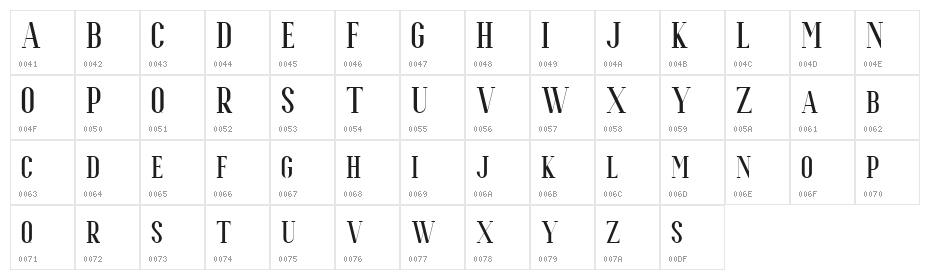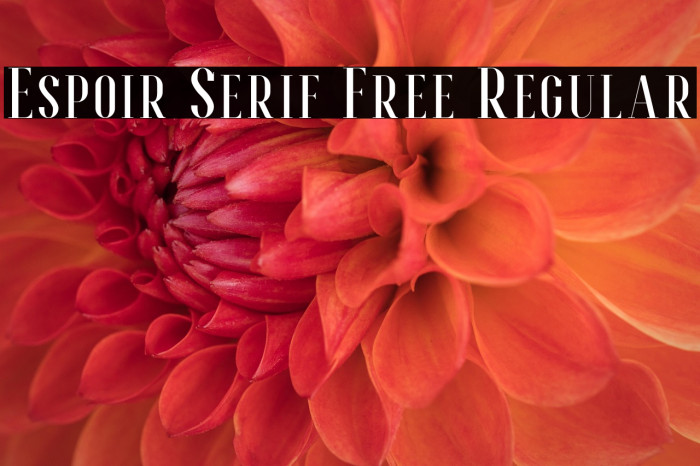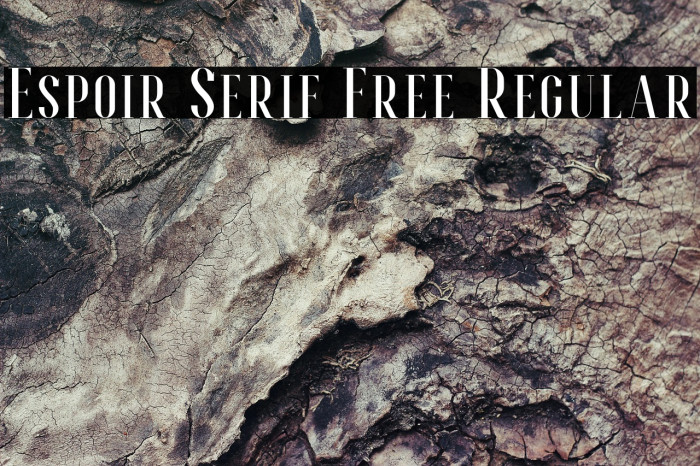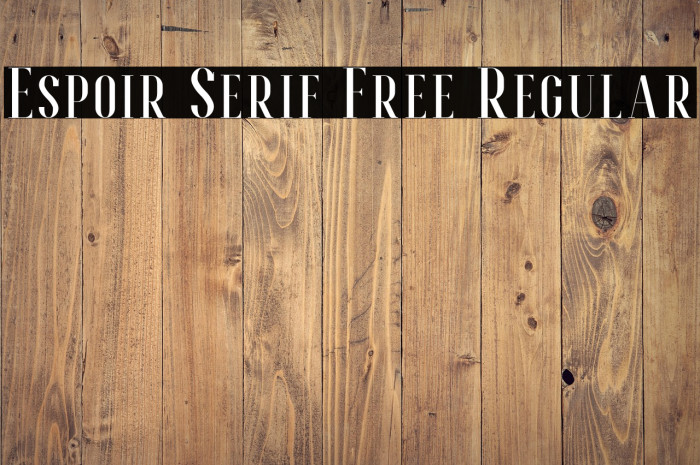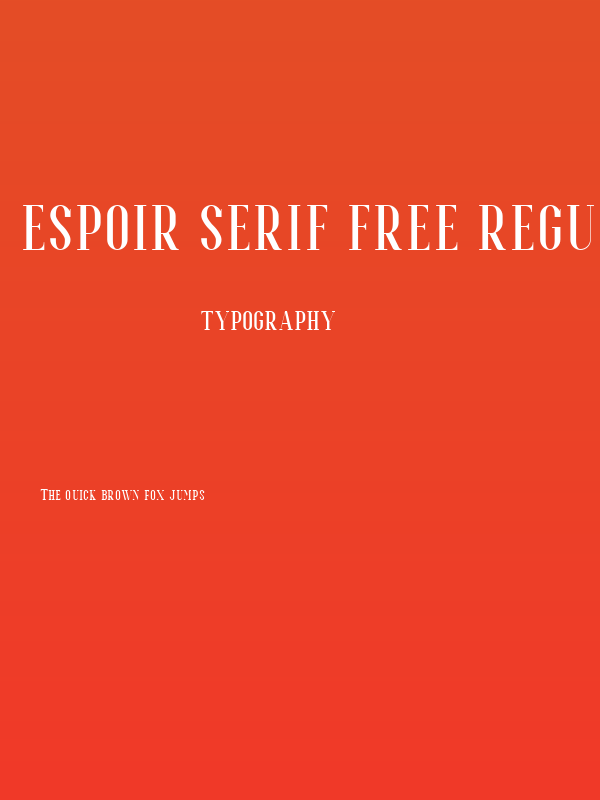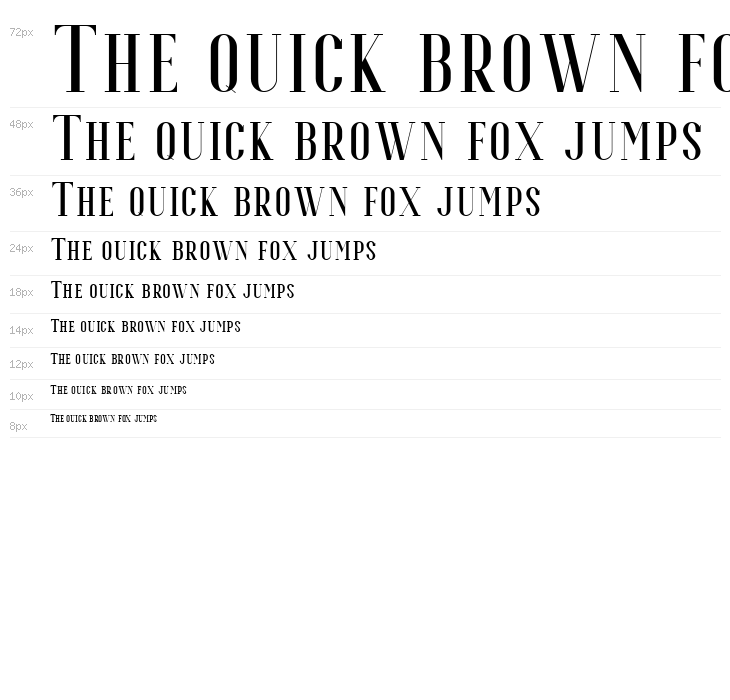
Espoir Serif Free Regular Font
Espoir Serif Free Regular Description
This font features a classic serif design with a modern twist, characterized by its elegant and elongated letterforms. The vertical strokes are bold and prominent, while the serifs are sharp and refined, adding a touch of sophistication. The contrast between thick and thin strokes is high, giving the font a dynamic and stylish appearance. It maintains a balanced and harmonious look, making it suitable for both formal and creative applications. The spacing between characters is normal, ensuring readability and clarity in various text sizes.
| Proposed Projects | Ideal for editorial design, branding projects, luxury product packaging, and elegant invitations. |